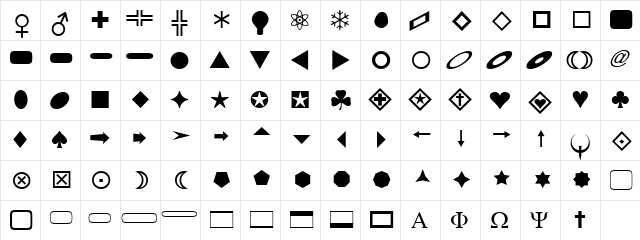
F&T_BasicShapes1 Regular
F&T_BasicShapes1 is a composed and adaptable typeface that performs quietly and consistently across a wide range of design contexts.